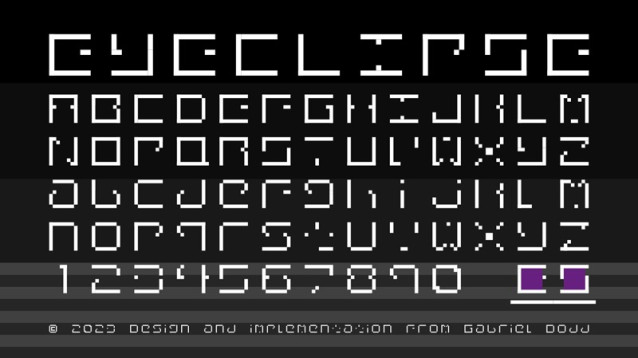
Eyeclipse Font. This typography is based on the light eyeshadows of the profile picture, avatar, and icon of an Electronic and Dance music promotion blog, “Eclipse Sounds!”, hence why we’ve named the font “Eyeclipse”.
Details: A simple 8-bit style sequence of squared and wide-spaced cryptic characters, leaving one horizontal or diagonal line incomplete, to fit a smaller 6×6 square in the middle, usually a different color, while making it still readable for the majority of people.
We’ve added some accents, Greek, and Cyrillic characters to make the font look more cryptic. If you have any suggestions about the font, whether if I should add different sets of characters, or to improve the typography more, feel free to let us know. 😀